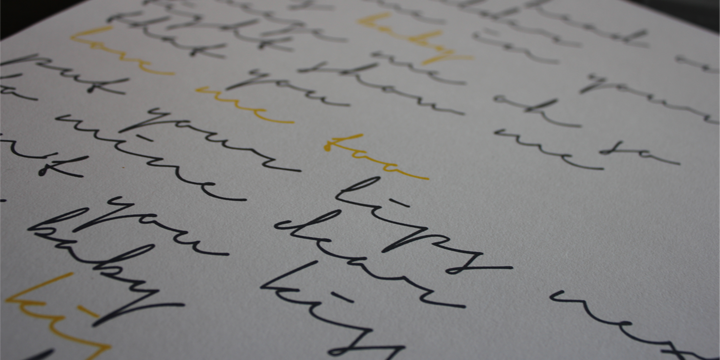
Signerica Font is ideal for elegant wedding invitations, luxury brand logos, high-end restaurant menus, fashion magazine headlines, cosmetic packaging, jewelry advertising, premium certificate designs, and sophisticated business cards. This graceful typeface brings refined elegance and handwritten charm to any project requiring sophisticated script typography.
What makes Signerica Font exciting is its perfect balance between formal calligraphy and contemporary script design. The font features flowing, connected letterforms with elegant flourishes that capture the beauty of professional hand lettering. Its sophisticated curves and refined stroke variations create a sense of luxury and personal touch, making it perfect for brands targeting upscale markets. The typeface's romantic appeal and timeless elegance ensure your designs convey premium quality and artistic refinement.
The Signerica Font family includes Regular, Bold, Light, and Ornamental styles, each maintaining the signature calligraphic elegance while offering different visual weights. The family features extensive ligatures, swash alternates, and decorative elements that enhance its handwritten authenticity. These variants provide designers with comprehensive tools for creating sophisticated script typography with professional calligraphic quality.
Whether you're designing luxury branding, elegant invitations, or premium packaging, Signerica Font Free Download delivers the sophisticated script elegance your projects deserve. Its combination of calligraphic beauty and contemporary functionality makes it perfect for communicating luxury, romance, and artistic excellence with authentic handwritten charm and timeless sophisticated appeal.